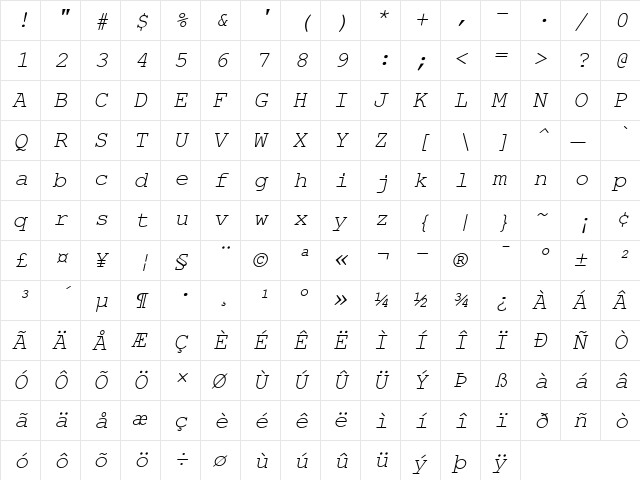
Nimbus Mono L Regular
Design Context for Nimbus Mono L Typeface
Nimbus Mono L uses fixed-width spacing throughout, giving it the structured, systematic character associated with coding environments and technical documentation.
Pro Tip: Use Nimbus Mono L with slightly increased line-height for extended reading — fixed-width spacing can feel dense in longer passages without extra breathing room.